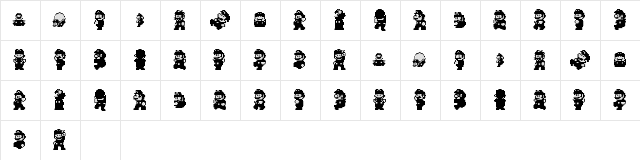
Super Mario World - Mario Regular
Design Context for Super Mario World - Mario Typeface
Super Mario World - Mario is a composed and adaptable typeface that performs quietly and consistently across a wide range of design contexts.